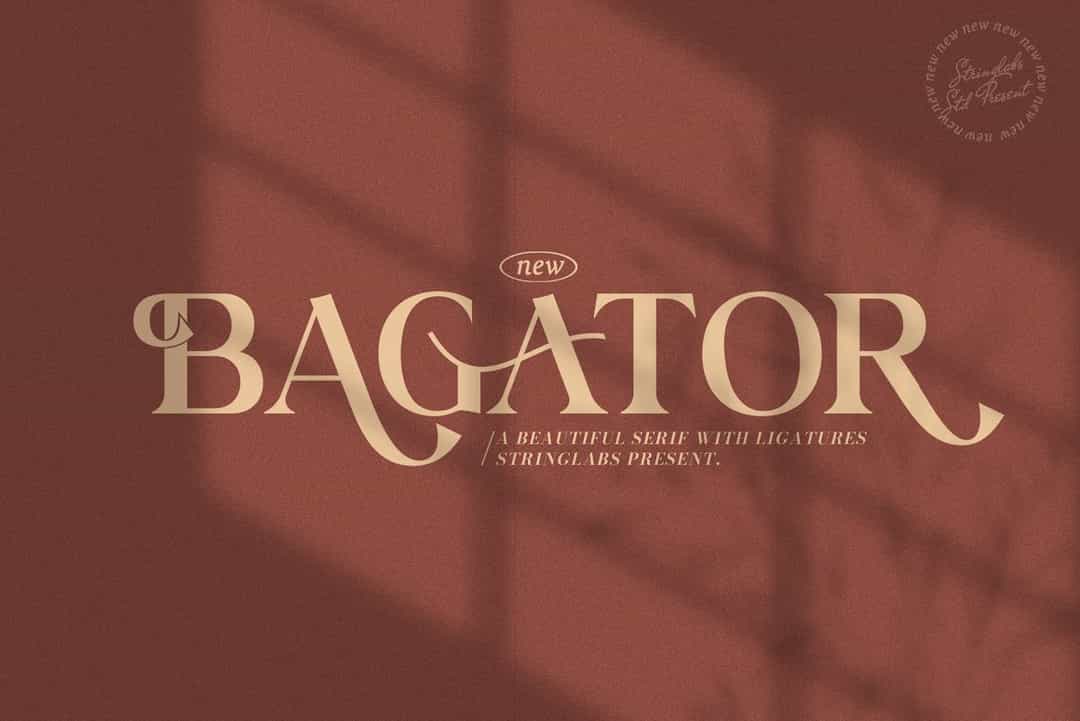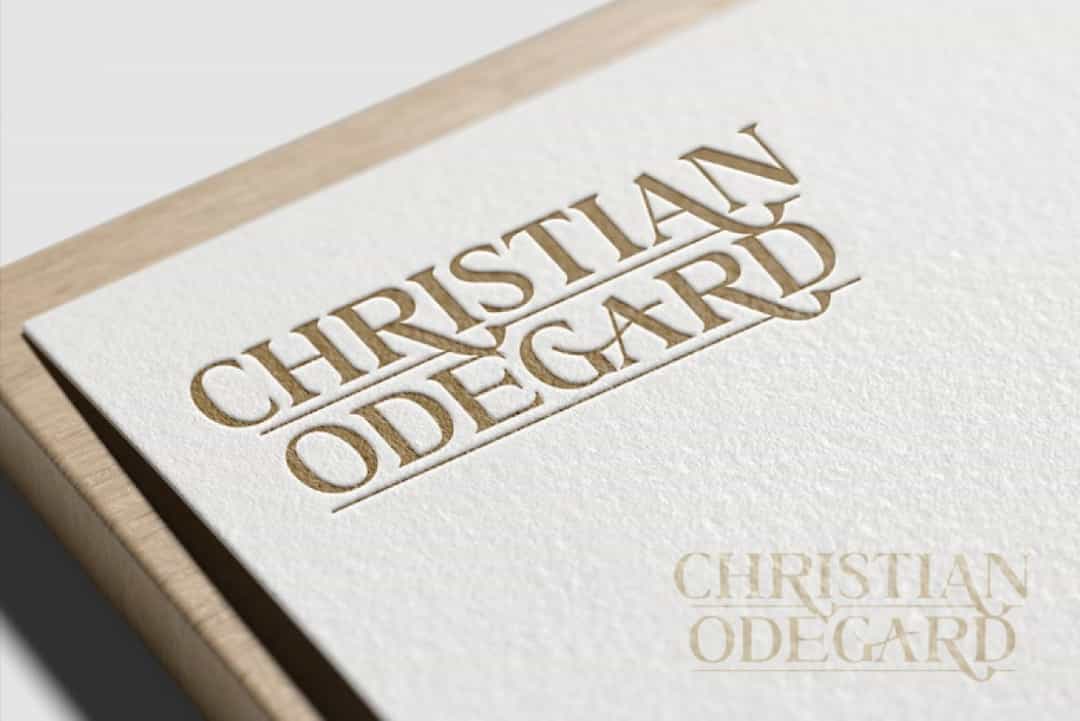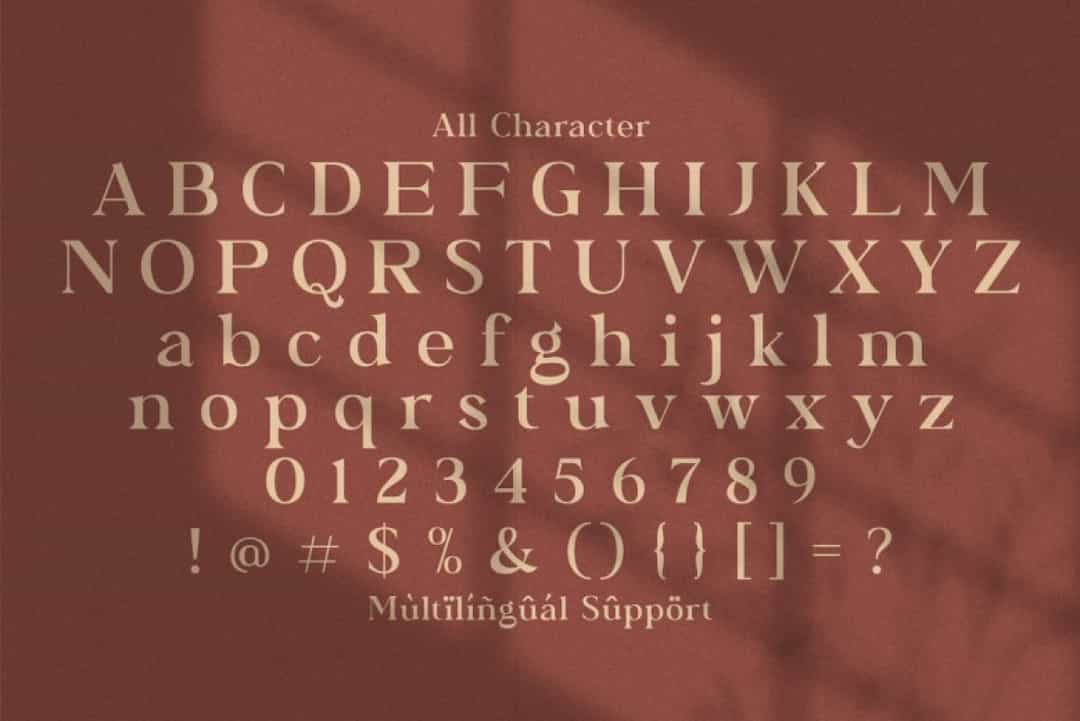
Bagatori is an exquisite serif typeface from StringLabs that stands out with its contemporary beauty and elegance. Use it in all of your creative projects and see them come to life! You will be delighted at how striking they become.